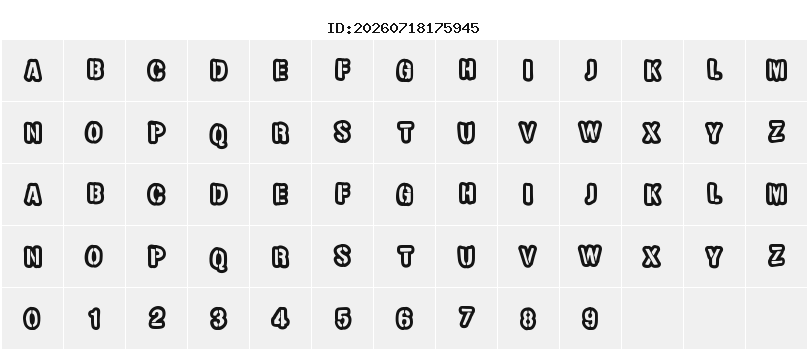
• Font Name: Cul de sac
• Designer: Woodcutter Manero
About Cul de sac.ttf
Cul de sac.ttf is a modern, elegant sans-serif font designed for ultimate readability and visual harmony. Perfect for branding, headlines, web design, and print materials.